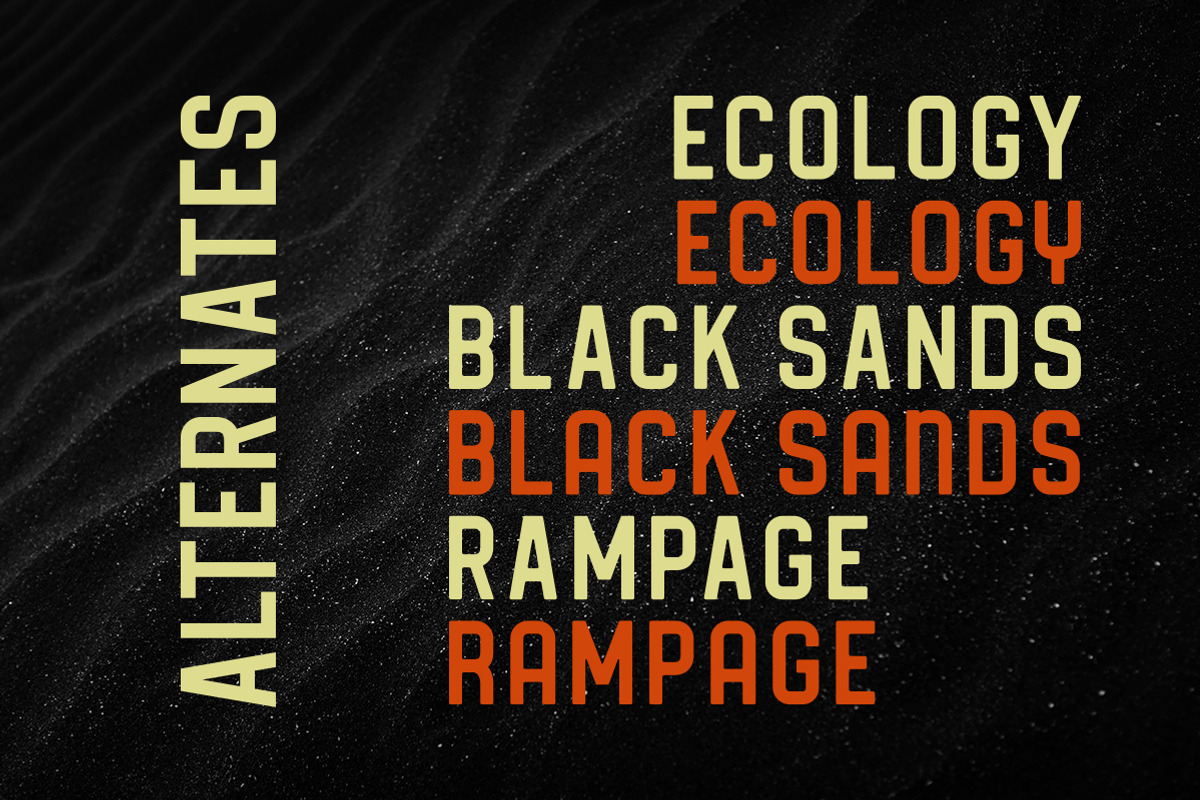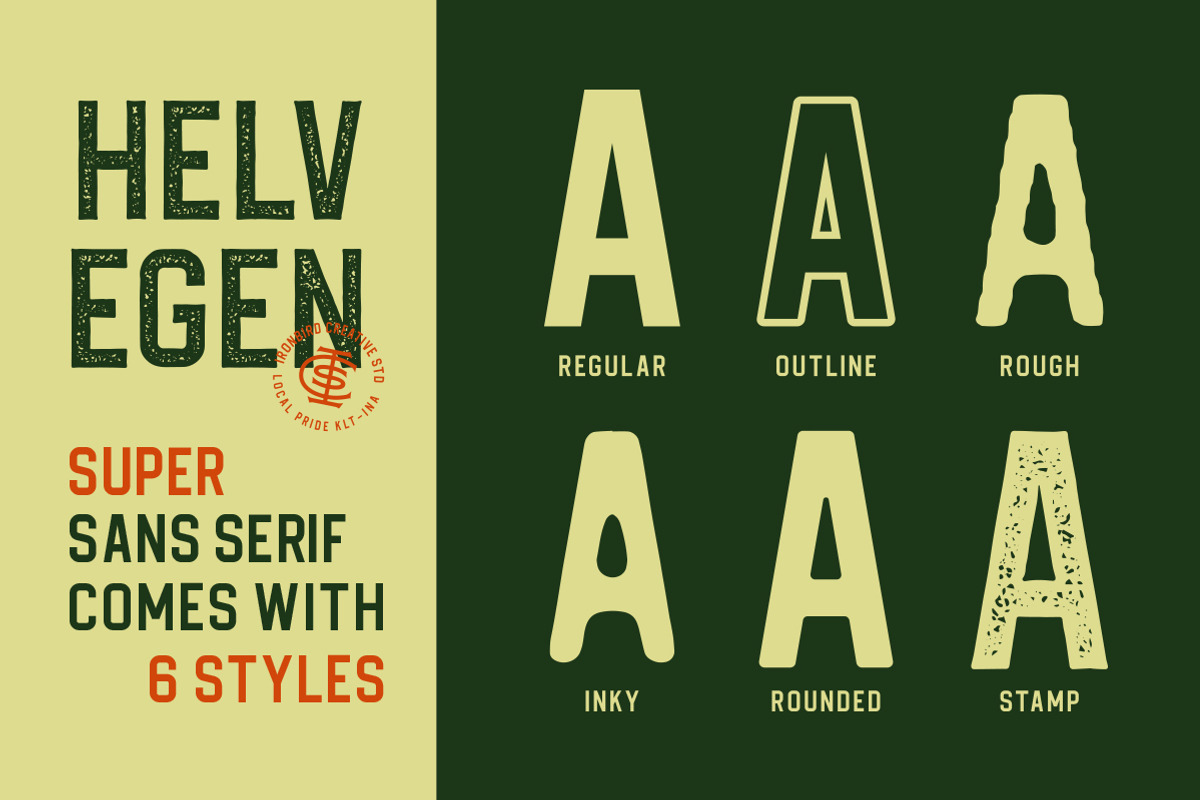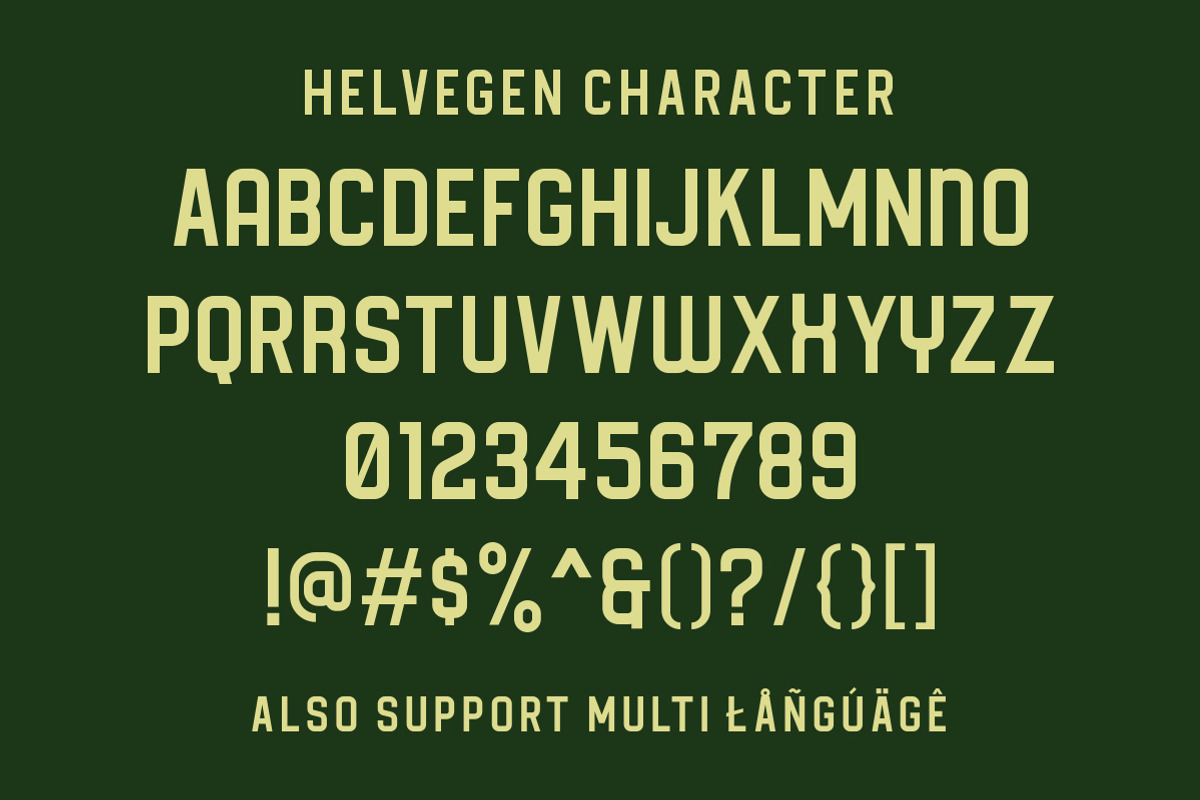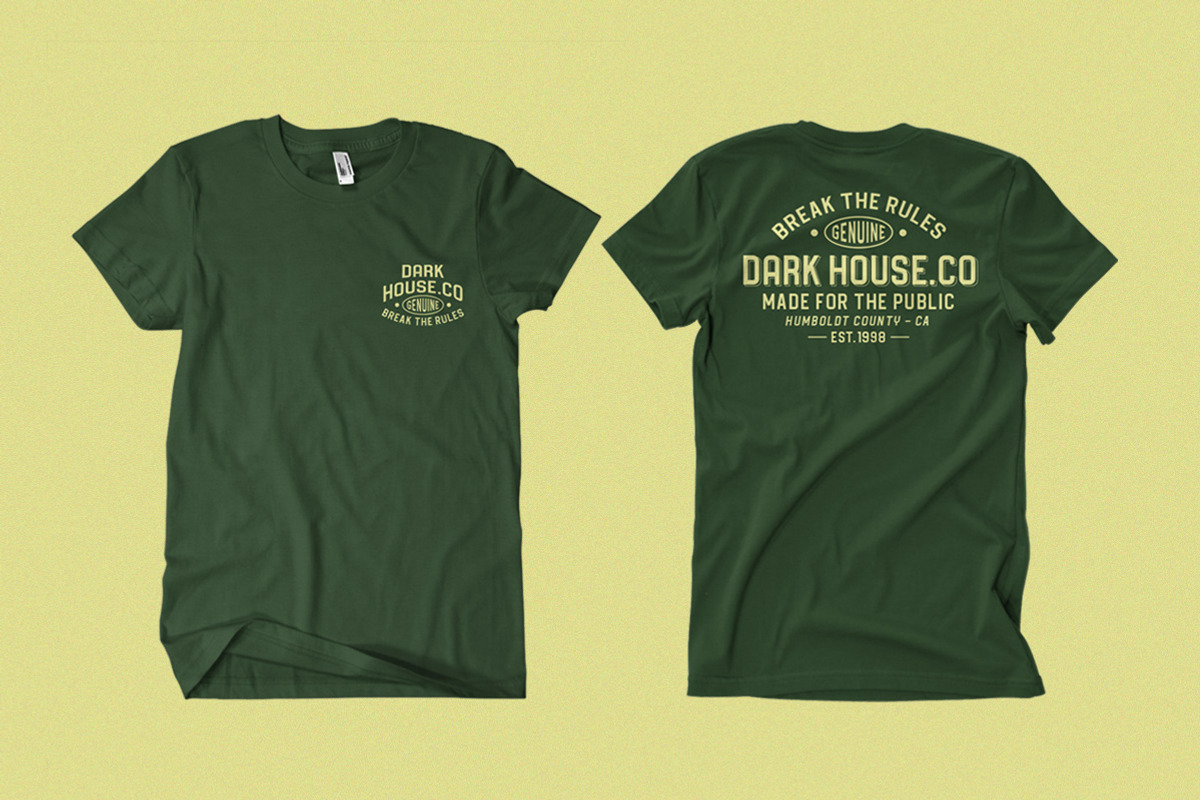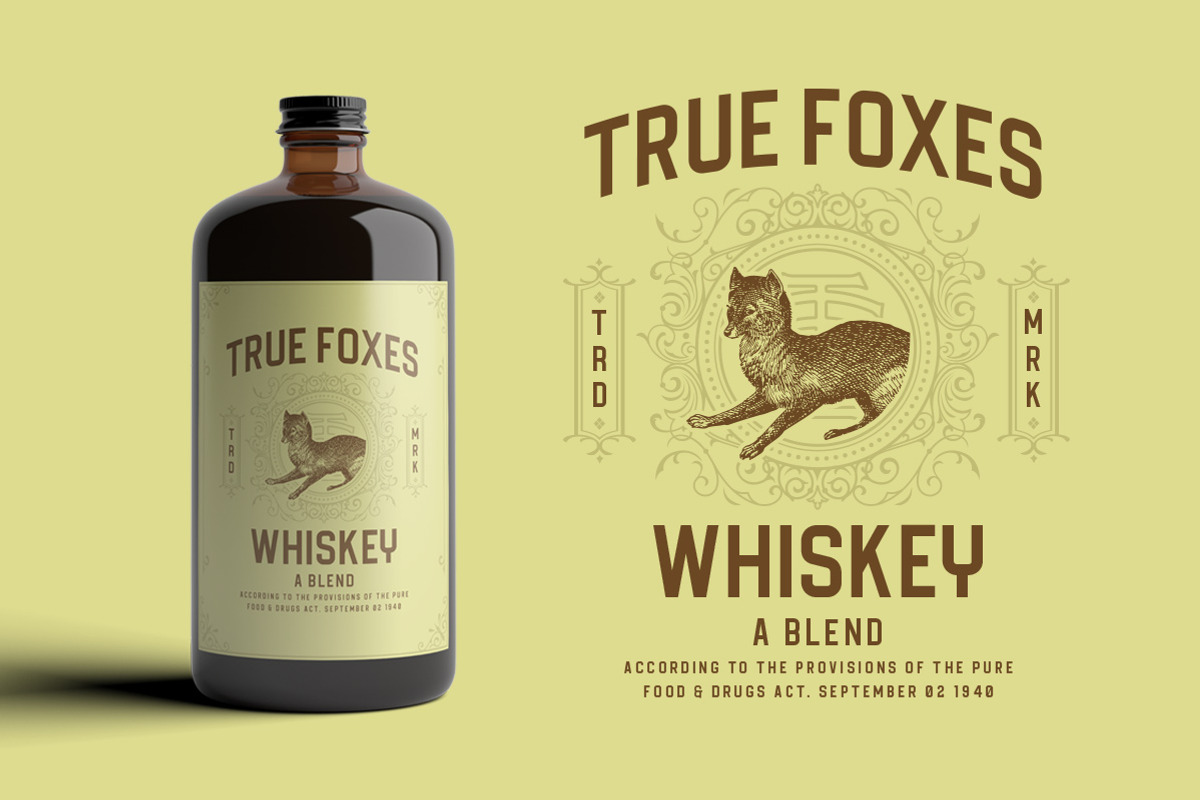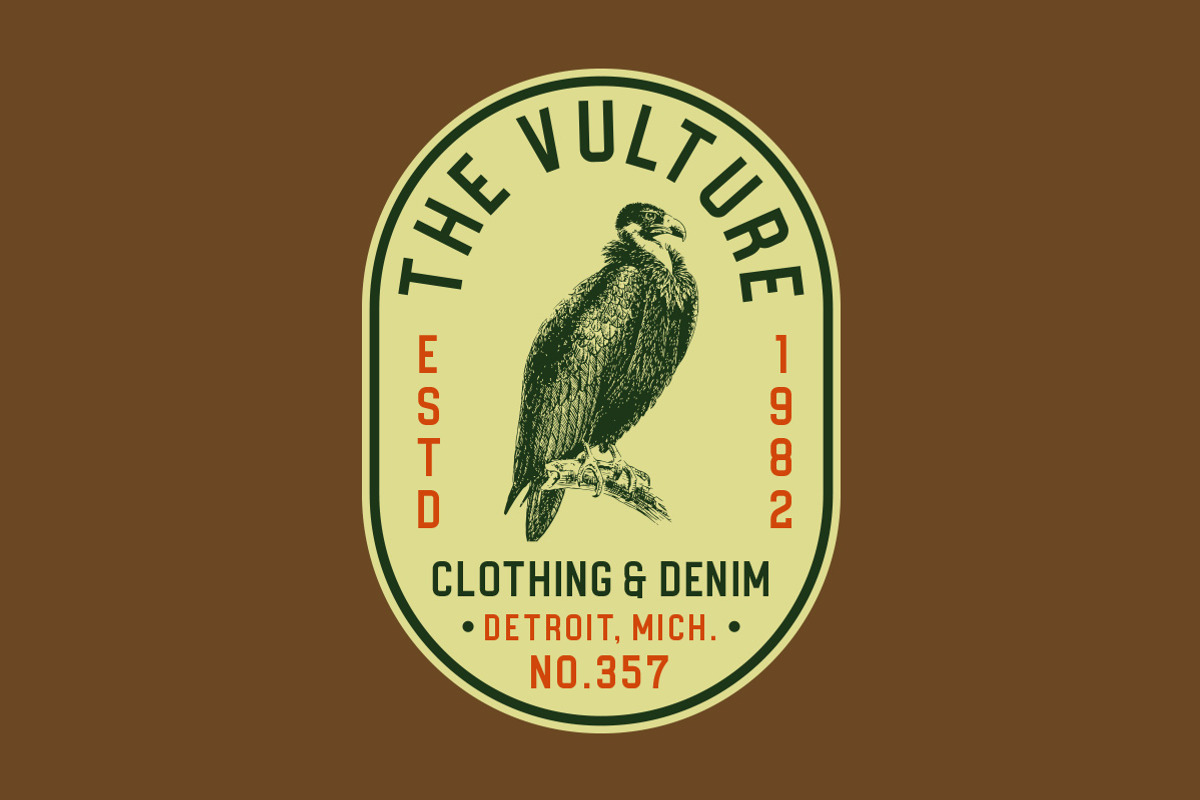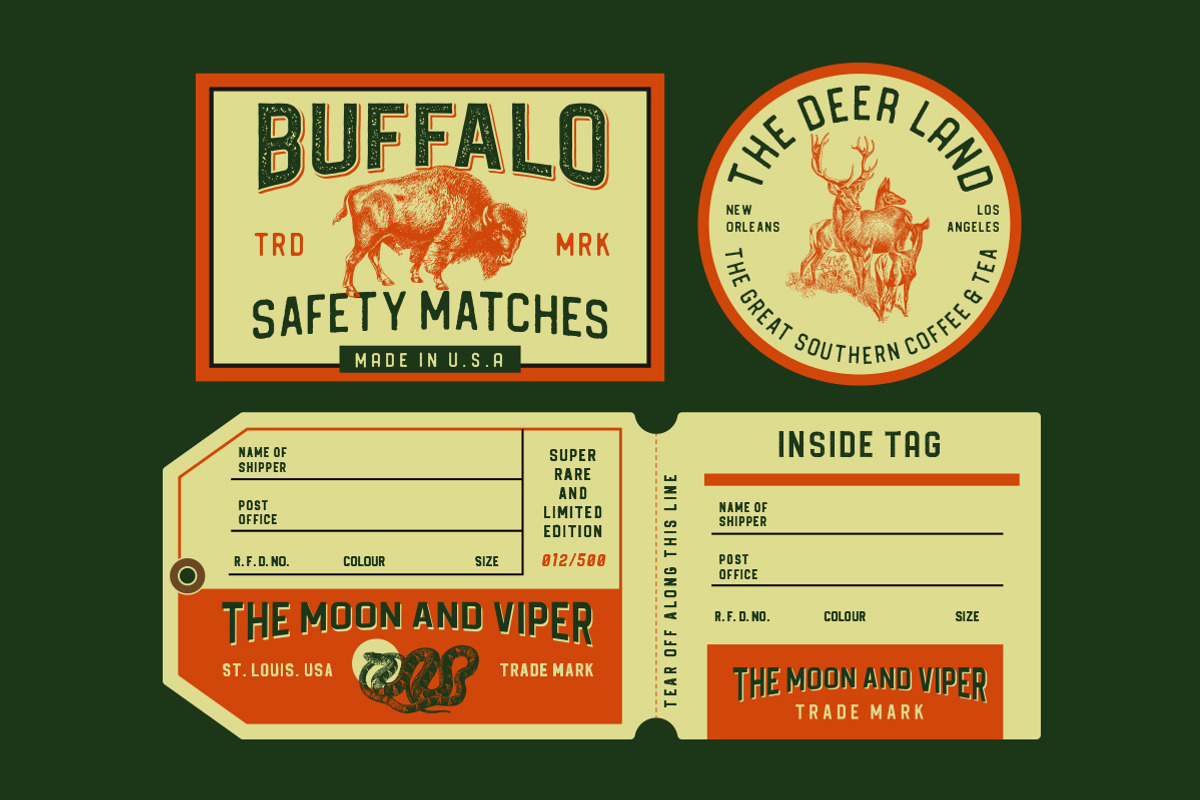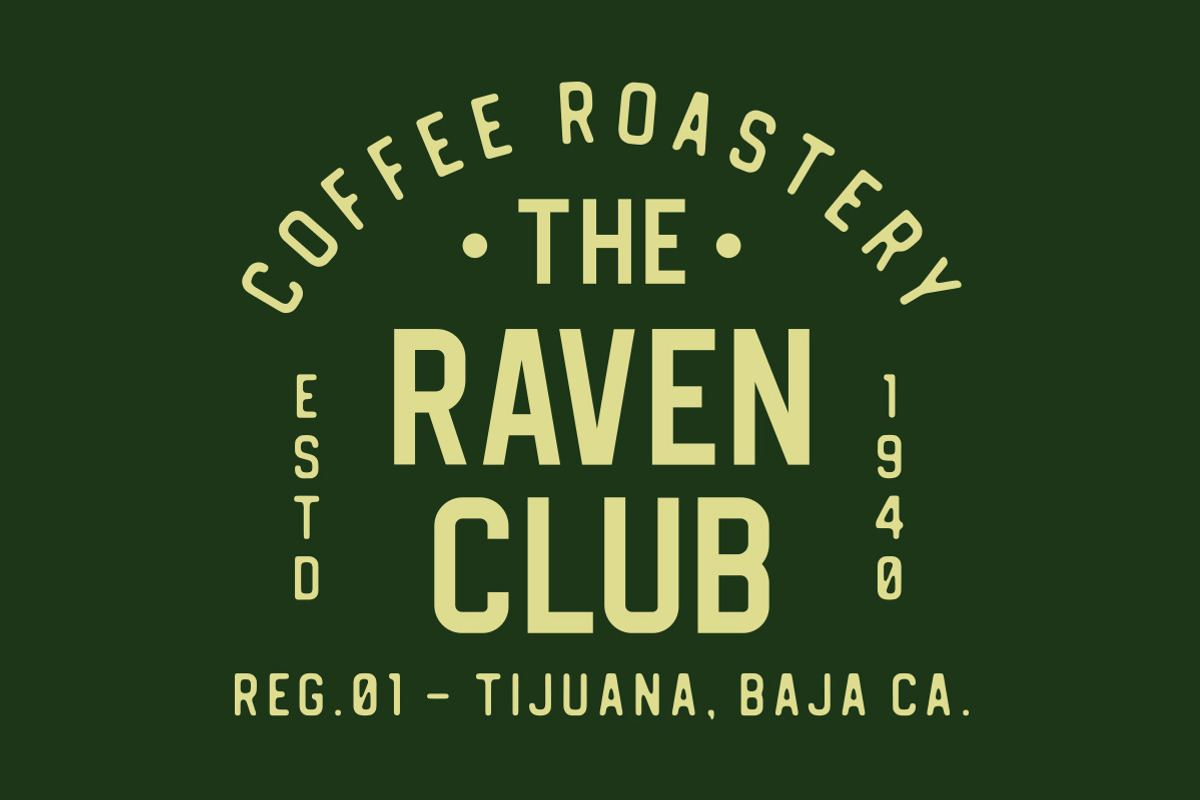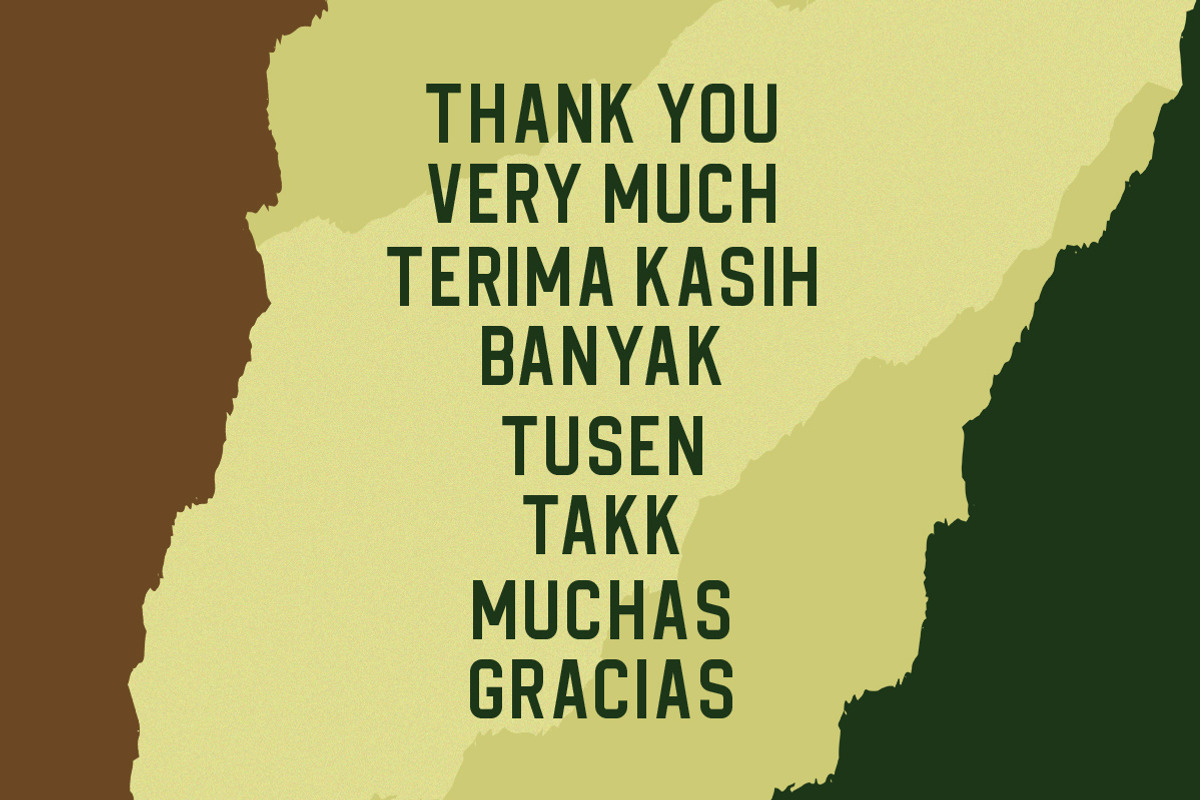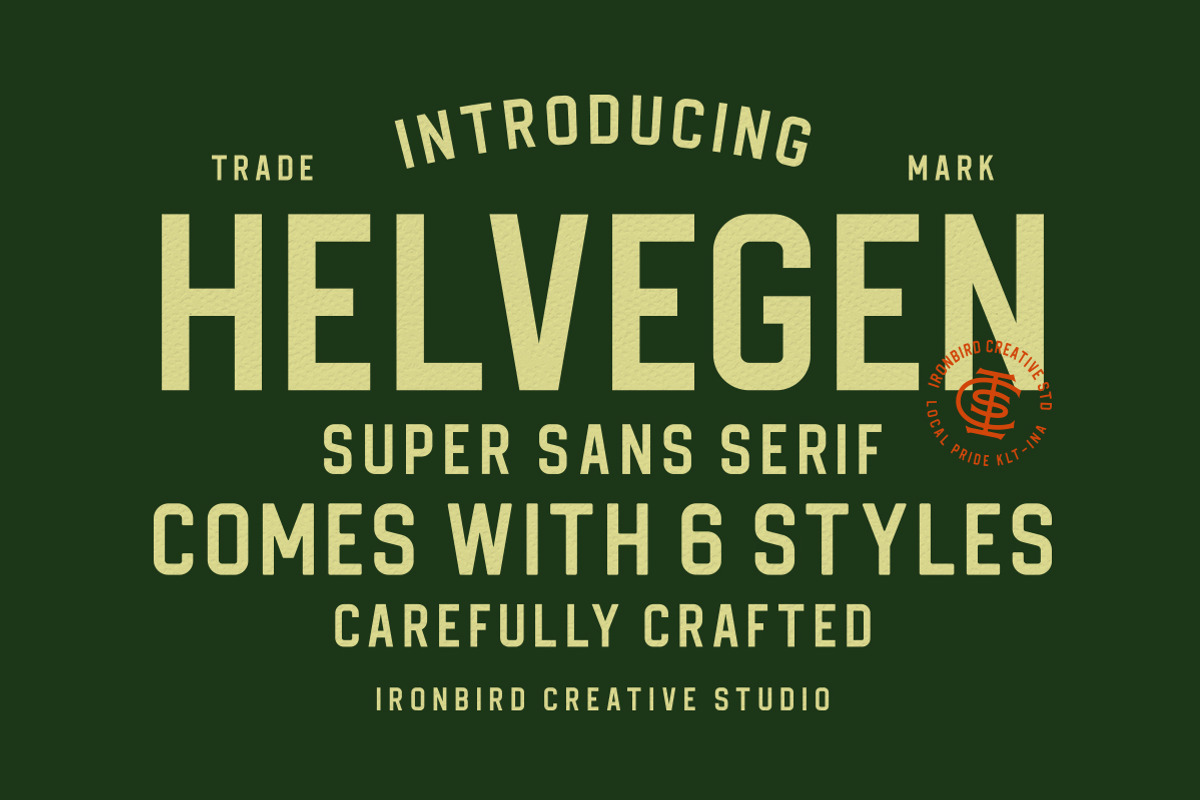
Helvegen Super Sans
Helvegen is a Super Sans Serif designed with carefully crafted. Comes with 6 Styles, Regular, Inky, Rough, Rounded, Outline and Stamp. Helvegen is a simple yet refined All-Caps sans serif. Also suitable for Branding, T-shirt, Vintage Design, Logotype, and any project. This font also support multilingual, number and symbol, alternates, and already PUA Encoded.
Helvegen Regular
Helvegen Inky
Helvegen Outline
Helvegen Rounded
Helvegen Rough
Helvegen Stamp
Multilingual Support support many different languages. Included AÀÁÂÃÄÅCÇDÐEÈÉÊËIÌÍÎÏNÑOØÒÓÔÕÖUÙÜÚÛWYÝiŸỲŸÆŒßÞþ